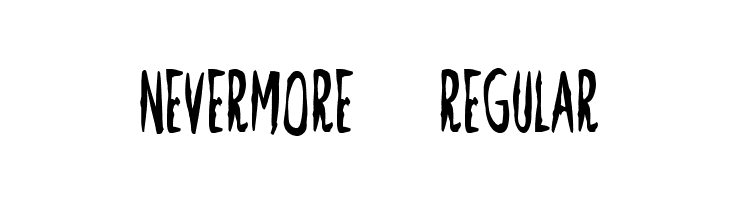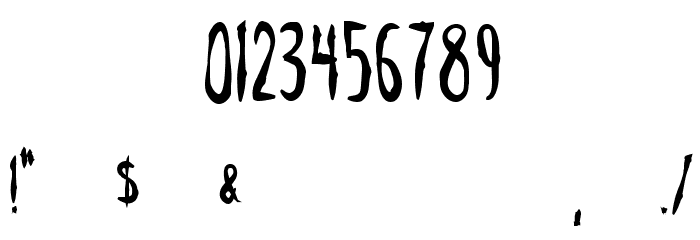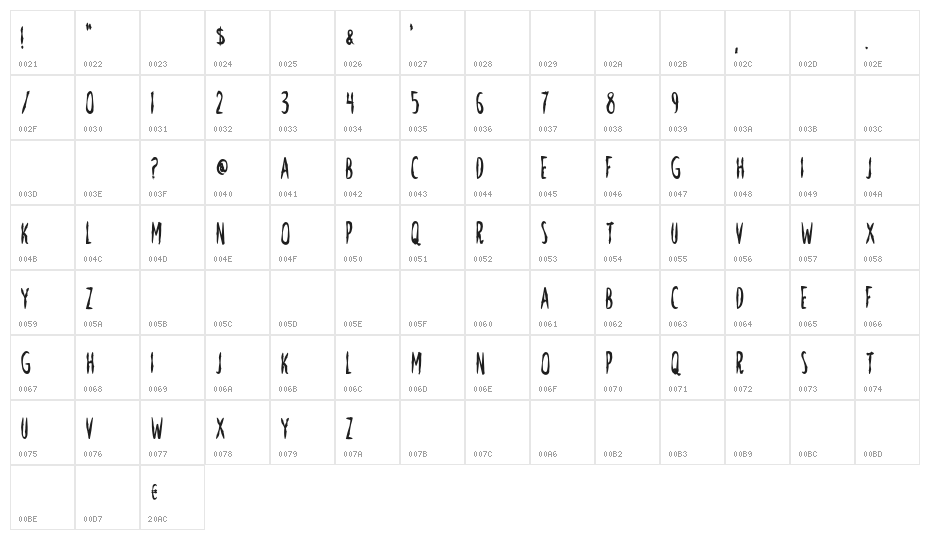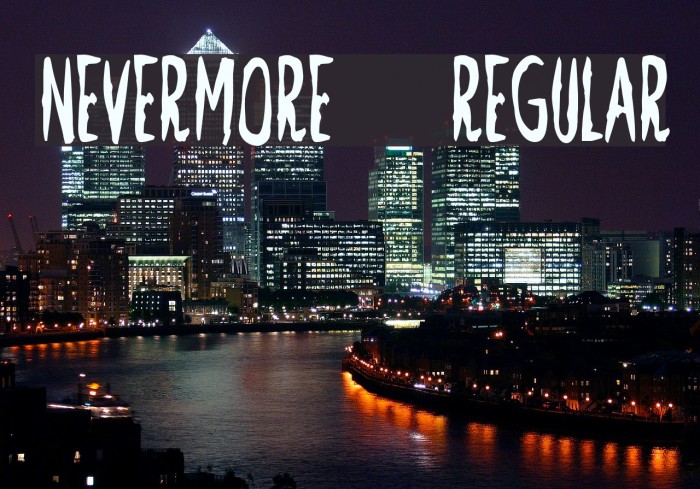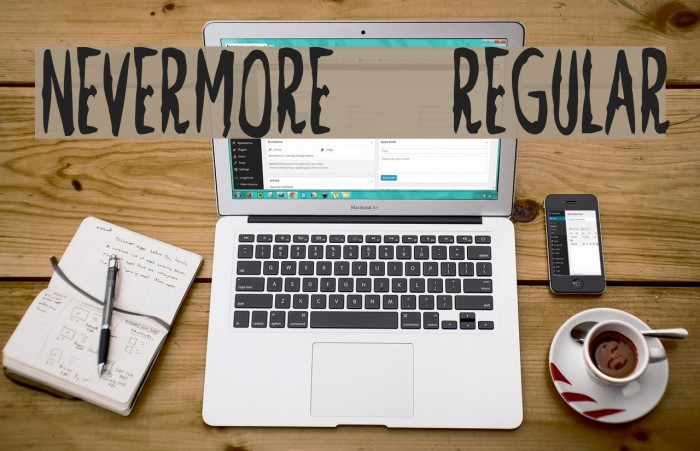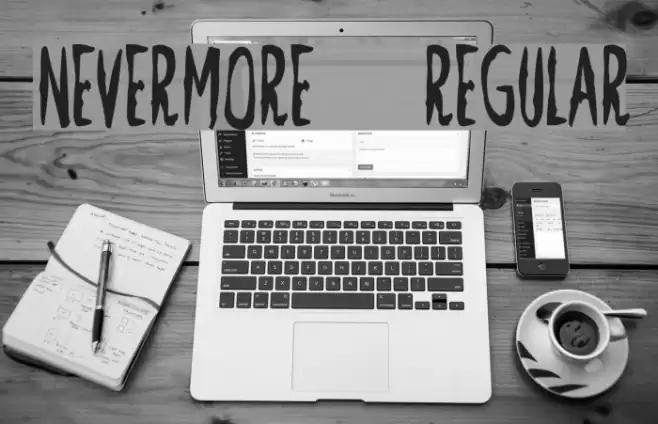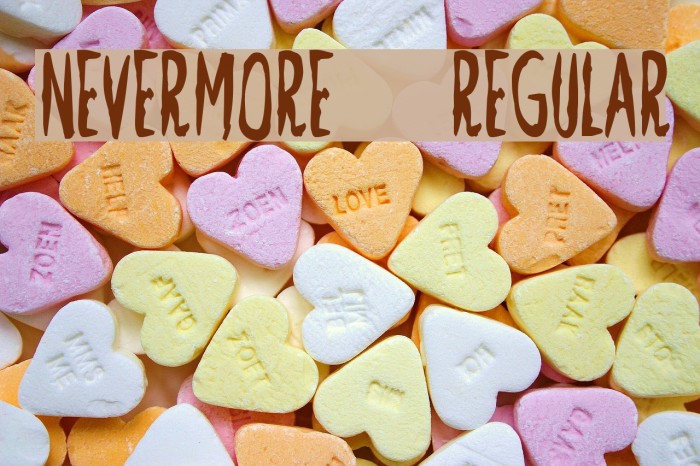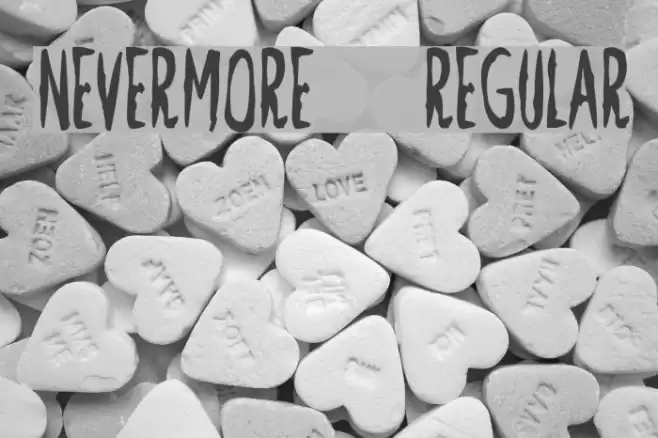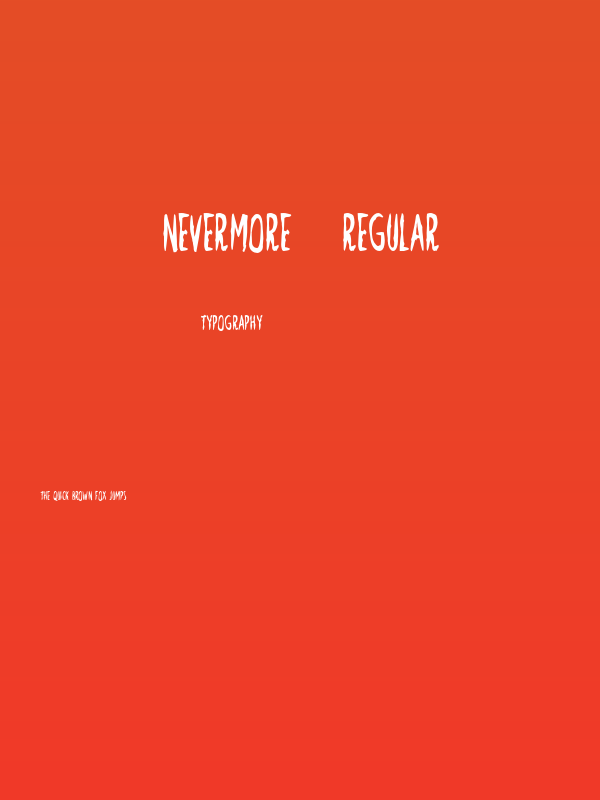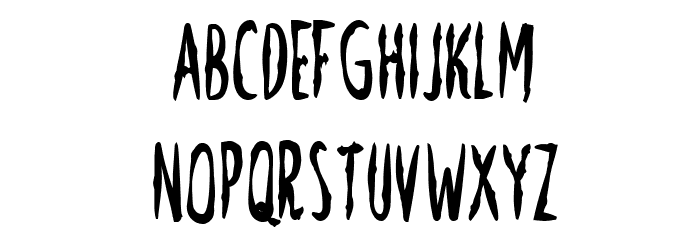
Nevermore-Regular Font
Nevermore-Regular Description
This font features a distinctive, hand-drawn style with an uneven, slightly jagged appearance that evokes a sense of mystery and intrigue. The characters are bold and dynamic, with varying stroke widths that create a lively and energetic feel. The uppercase and lowercase letters maintain a consistent style, with elongated verticals and sharp angles that add to the dramatic effect. The numbers and special characters follow the same aesthetic, ensuring a cohesive look across all text elements. This font's unique design makes it suitable for projects that require a touch of the unconventional or eerie.
| Proposed Projects | Ideal for horror-themed posters, book covers, Halloween invitations, and any design that requires a dramatic and unconventional typeface. |